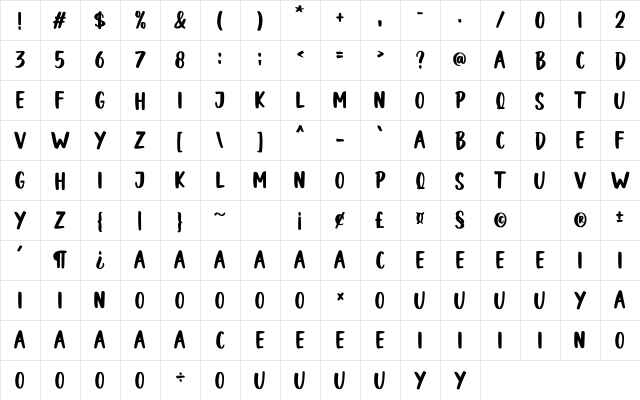
Camping Regular
Foundry: Graphix Line Studio
Designer: Aldi Raya Pradipta
Design Context for Camping
Camping is a composed and adaptable typeface that performs quietly and consistently across a wide range of design contexts.